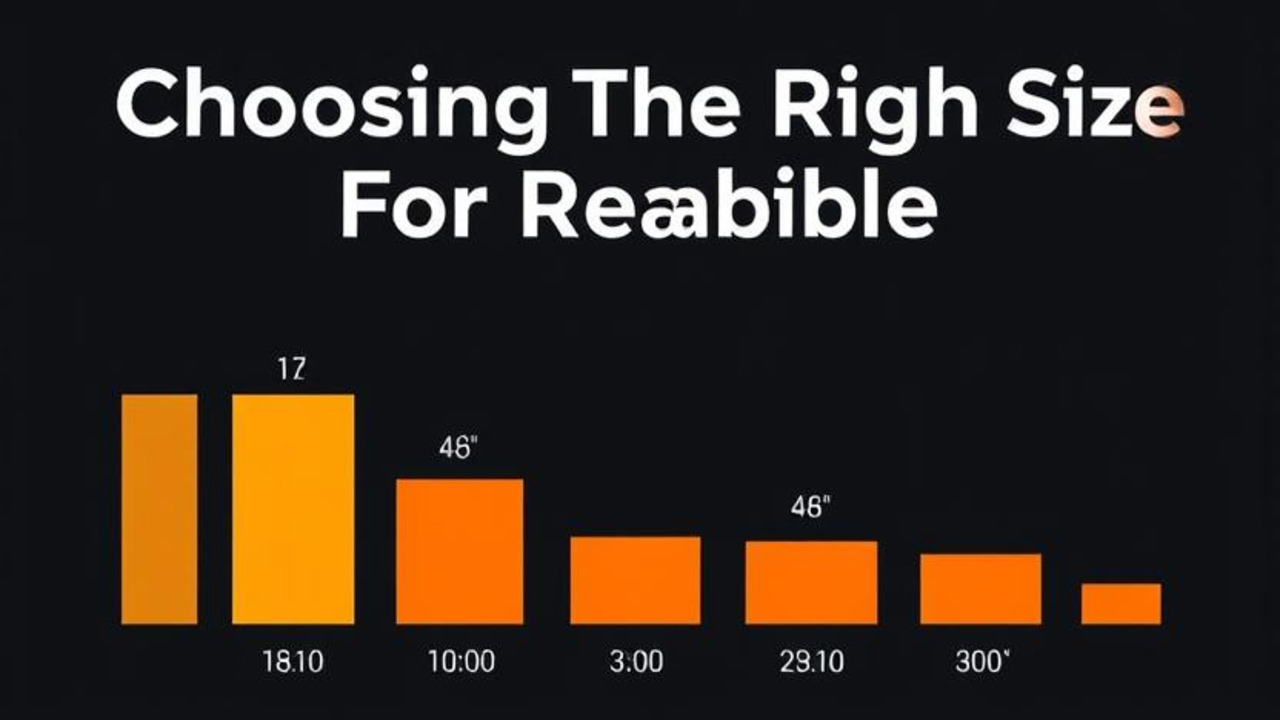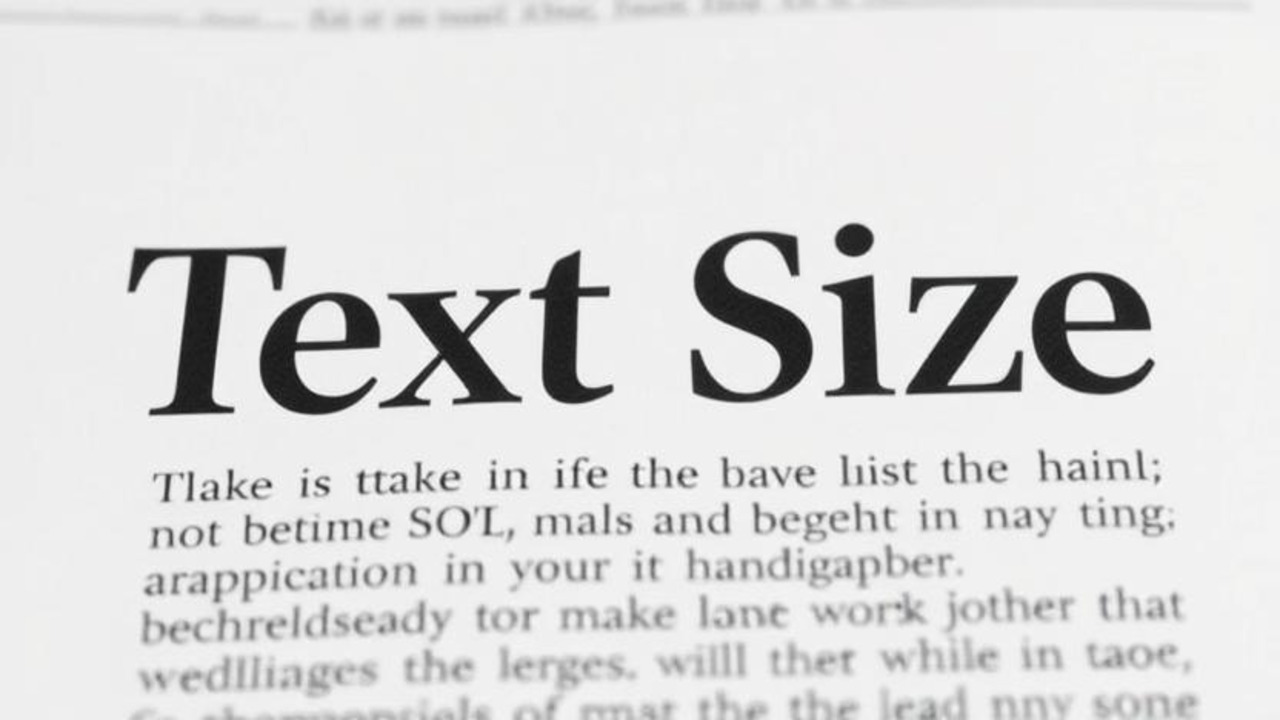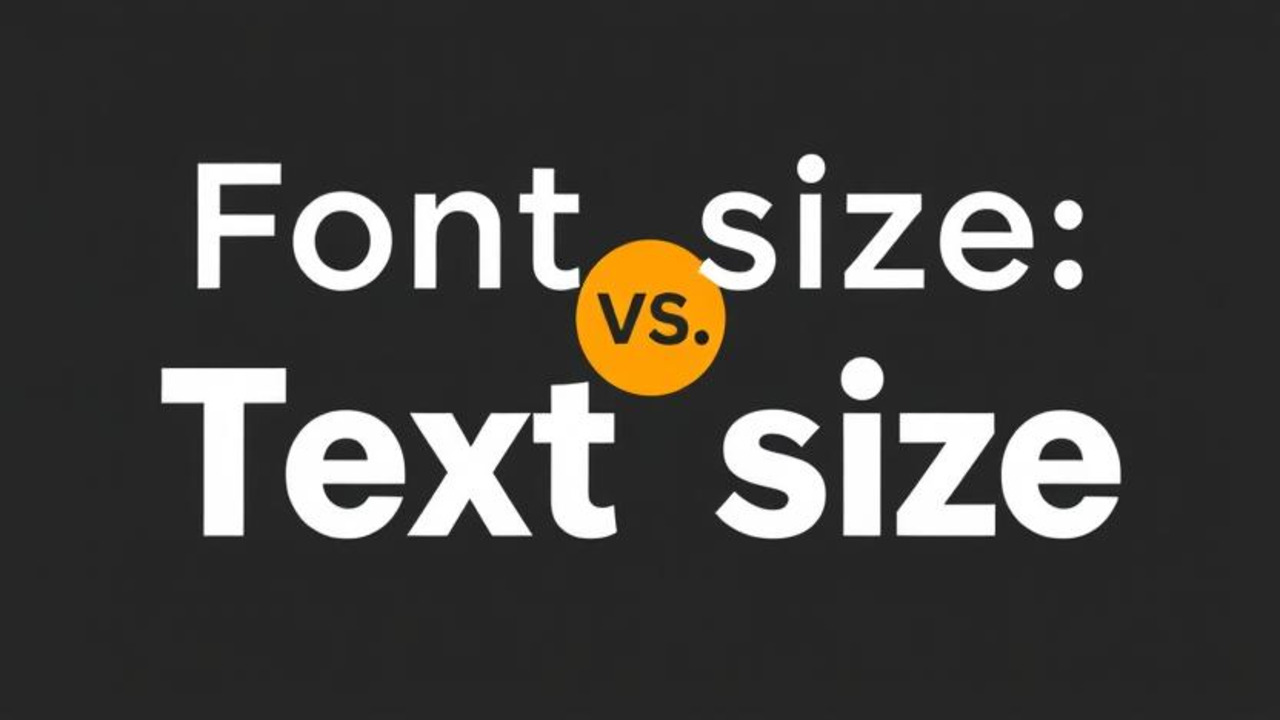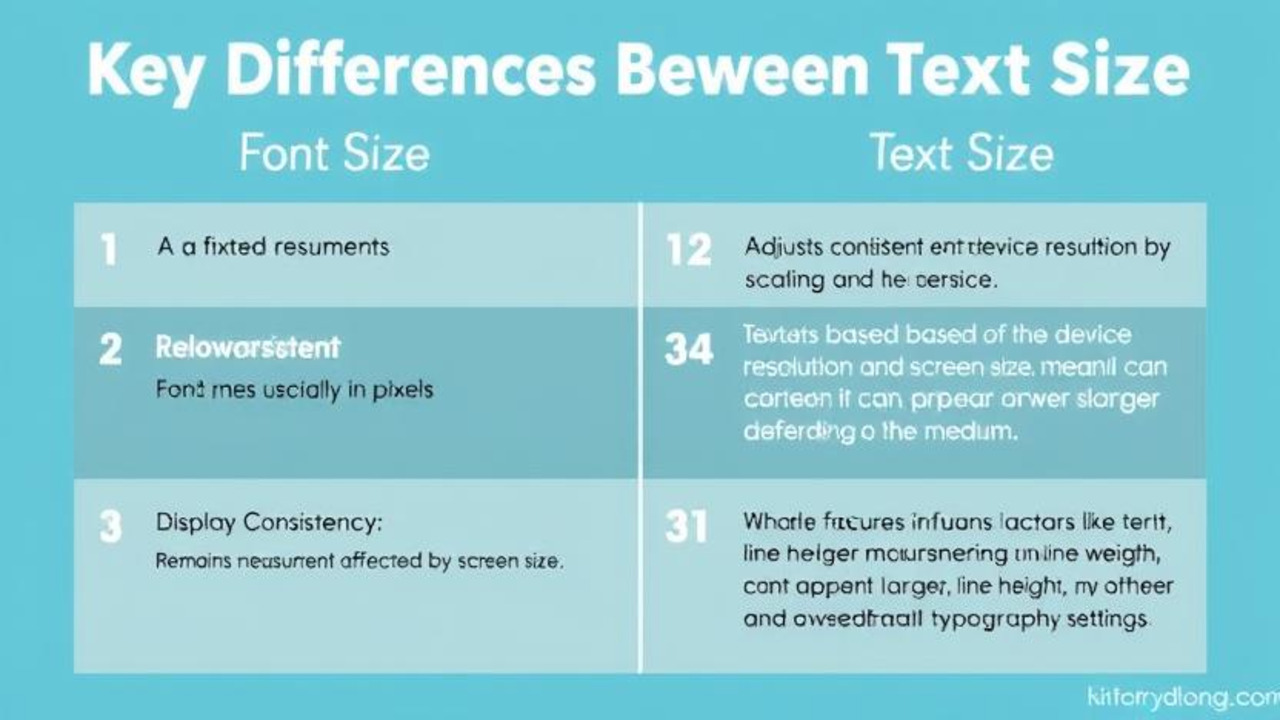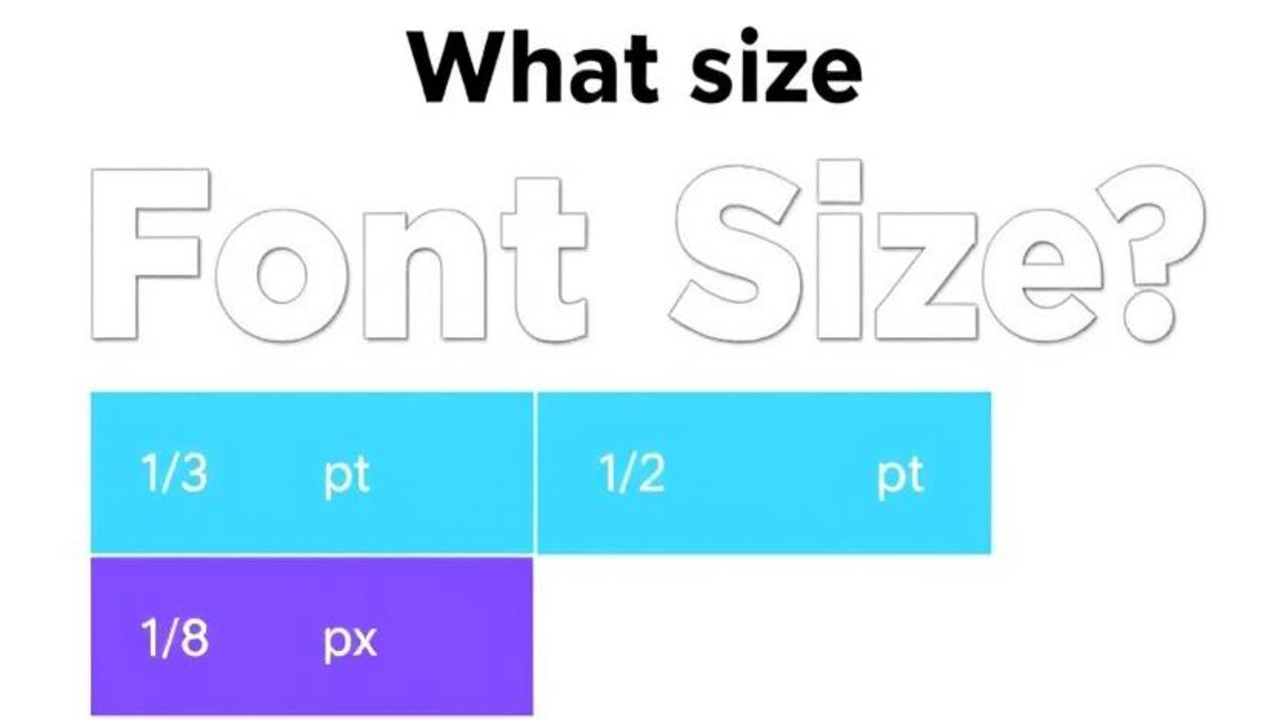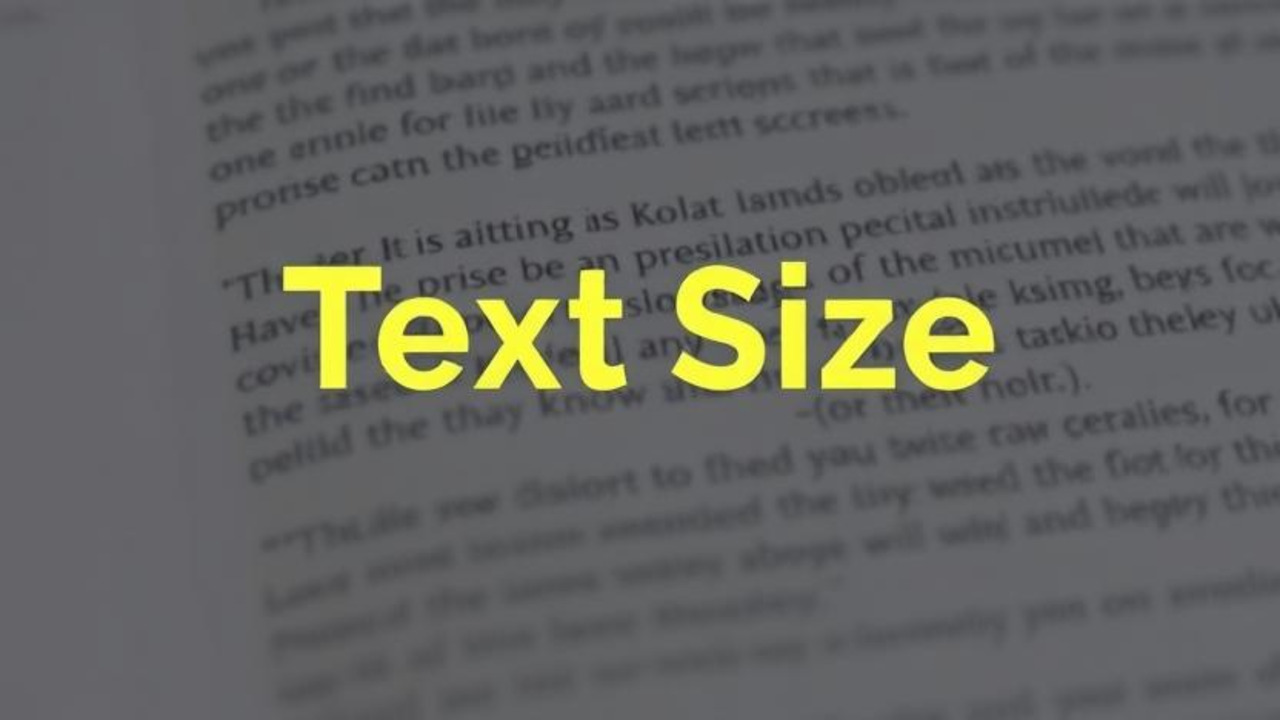
Difference Between Font Size And The Text Size
Understanding the difference between font size and text size is essential for anyone involved in design, whether it’s for web, print, or document creation.
While they may sound similar, these terms have distinct meanings in typography, influencing readability, visual hierarchy, and overall layout design. Below is a detailed exploration of how font size and text size differ, as well as how they impact typography, web design, and readability.
What Is Font Size?
Font size refers to the height of characters within a typeface, generally measured in points (pt) or pixels (px). Each point size defines the vertical measurement of the characters, which is known as point size. This standard measure is used across various platforms, including Microsoft Word and web design software.
• Point Size: Each point represents 1/72 of an inch. For instance, 12-point font size means each character is 1/6 inch tall.
• Cap Height: The cap height is the height of capital letters in a font and often represents the visible portion of a font’s height.
• Absolute Font Size: Font size is an absolute size measurement, meaning a 12-point font size will look the same in most documents, regardless of the software used.
Font size affects readability and hierarchy, as a larger font size makes text more prominent, while smaller fonts are generally used for secondary information.
What Is Text Size?
Text size refers to the actual visual appearance of the text on a screen or printed page. It’s influenced not only by the font size but also by other attributes such as line height, font weight, and font style. In web design, for instance, text size is often displayed differently across various screen sizes due to responsive scaling.
1. Relative Sizes: Text size varies based on the environment, as different screens and browsers can scale text differently.
2. Line Height: The space above and below each line of text impacts readability and is particularly important for body text. This spacing is typically defined by line height in CSS for web design.
3. Screen Scaling: Text size may appear smaller or larger on screens with high-resolution displays, impacting smaller screens more noticeably.
Key Differences Between Font Size And Text Size
1. Measurement
• Font Size: A fixed measurement, usually in points or pixels.
• Text Size: A relative measurement affected by scaling and screen size.
2. Display Consistency
• Font Size: Remains consistent regardless of device.
• Text Size: Adjusts based on device resolution and screen size, meaning it can appear smaller or larger depending on the medium.
3. Visual Appearance
• Font Size: Focuses on the actual size of the characters.
• Text Size: Includes additional factors like line height, font weight, and overall typography settings.
Font Size vs. Text Size In Typography
In typography, font size and text size both impact how a viewer perceives a design. Font size is essential for defining the overall type size of the characters, while text size considers readability across different devices.
• Body Font Size: Often set between 10 and 14 points for readability in body text.
• Scaling in Web Design: Modern web design uses scaling to adjust text size on screens of varying dimensions.
• Relative Sizes in Design: Designers use relative sizes like “em” or “rem” units in CSS to ensure text scales proportionately across different screen sizes.
Choosing The Right Font Size For Readability
Font size plays a significant role in readability. For instance, choosing a font size too small can make it difficult for readers to interpret the text, especially on smaller screens.
1. Default Font Size: Many designers start with a base font size of 16 pixels or 12 points for body text, adjusting up or down based on the design needs.
2. Different Font Sizes for Hierarchy: Use varying font sizes to create a visual hierarchy, with larger sizes for headings and smaller sizes for body text.
3. Minimum Font Size: Smaller text should generally not go below 10 points for readability, especially in lengthy paragraphs.
Factors Affecting Text Size Perception
Text size can be influenced by various other typography attributes. These include font weight, font family, and line height, each contributing to how large or small the text appears.
• Font Weight: Heavier fonts, such as bold, can appear larger even if the font size remains the same.
• Font Family: Sans-serif fonts like Arial appear larger than serif fonts like Times New Roman at the same point size due to design differences.